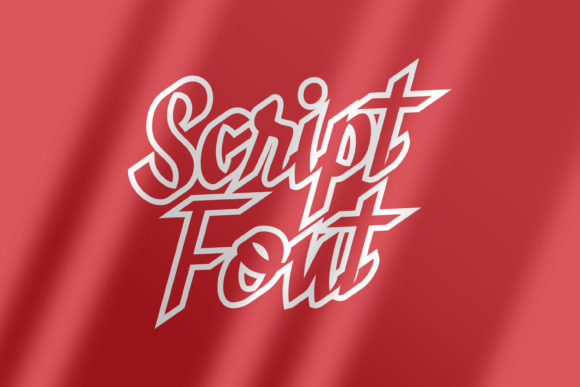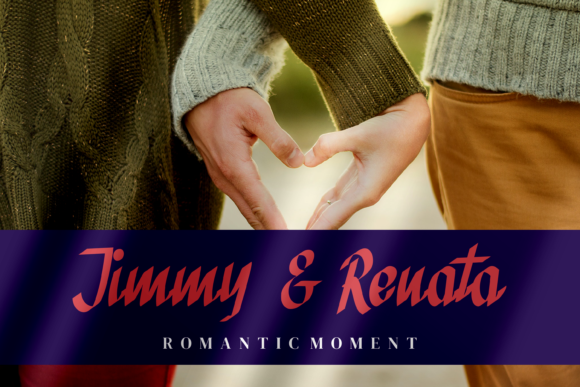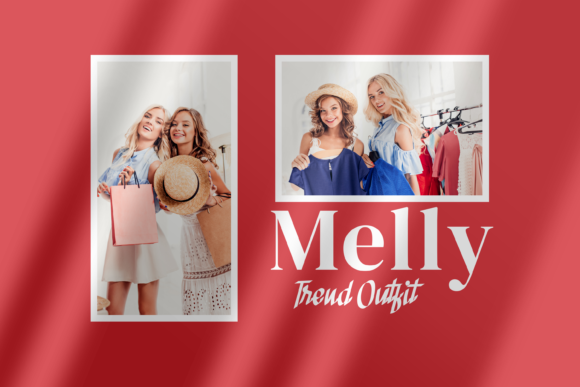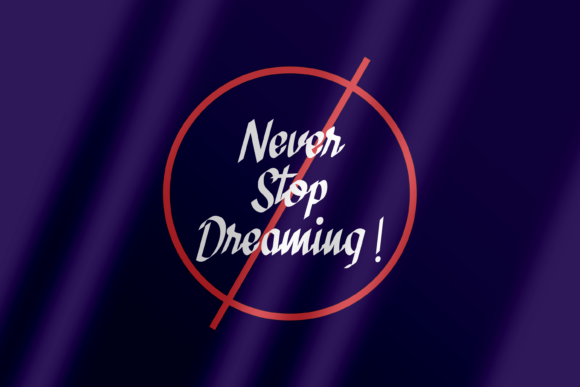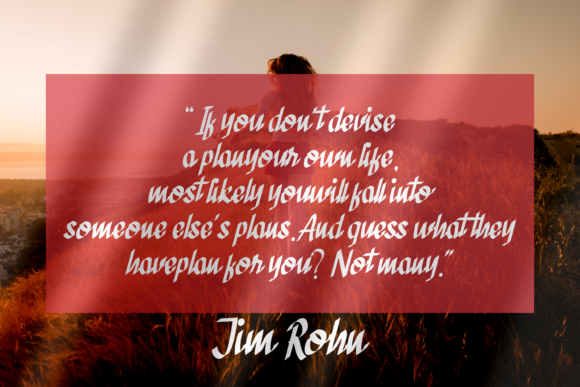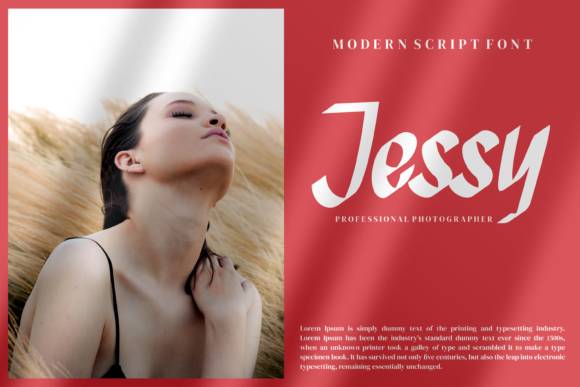
Introduction to Dloothe Ridley Font
Dloothe Ridley is an exquisite handwritten font, masterfully designed to become a true favorite.
Key Features of Dloothe Ridley Font
Why Choose Dloothe Ridley Font?
Dloothe Ridley Font offers exceptional quality and versatility, making it a valuable addition to your design toolkit. Whether you’re creating for personal projects or commercial use, Dloothe Ridley Font delivers professional results.